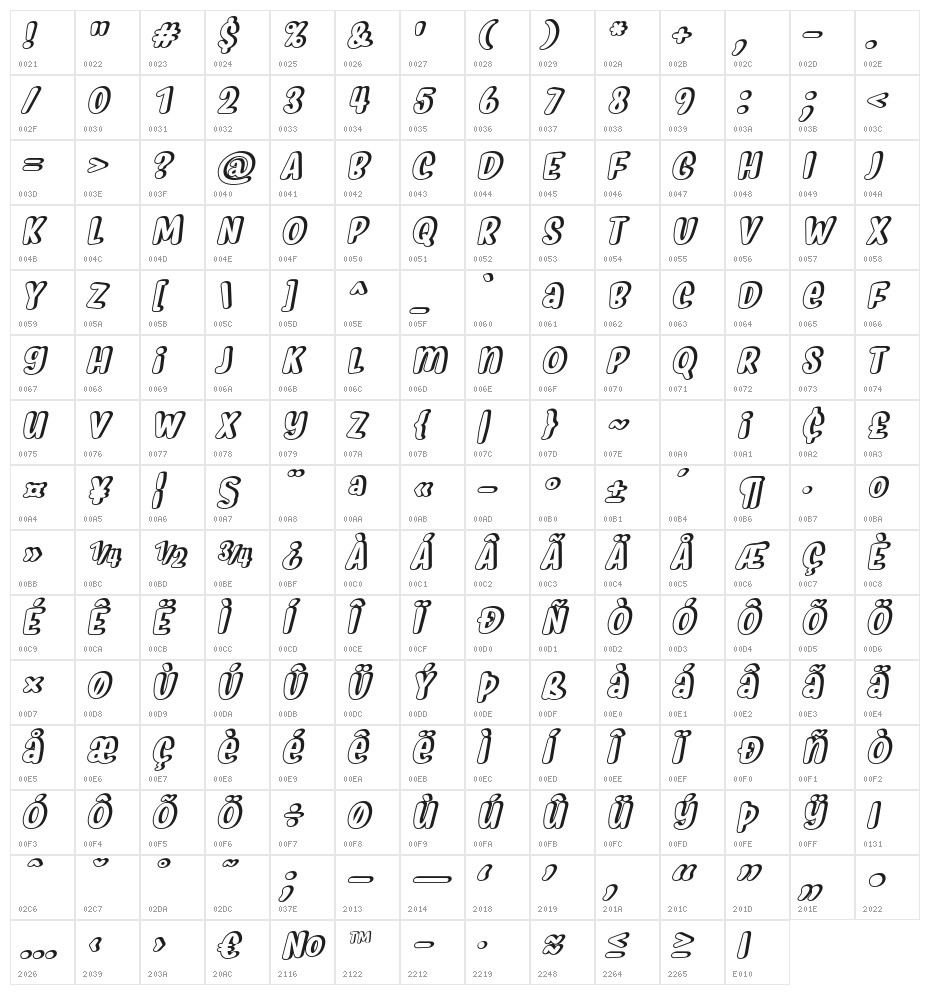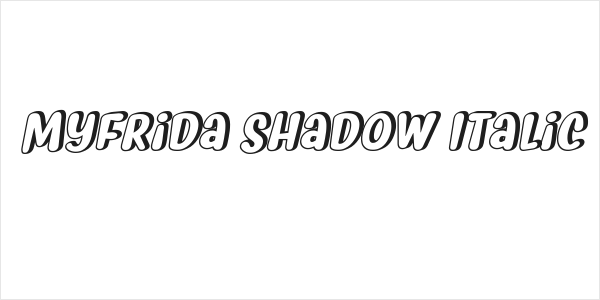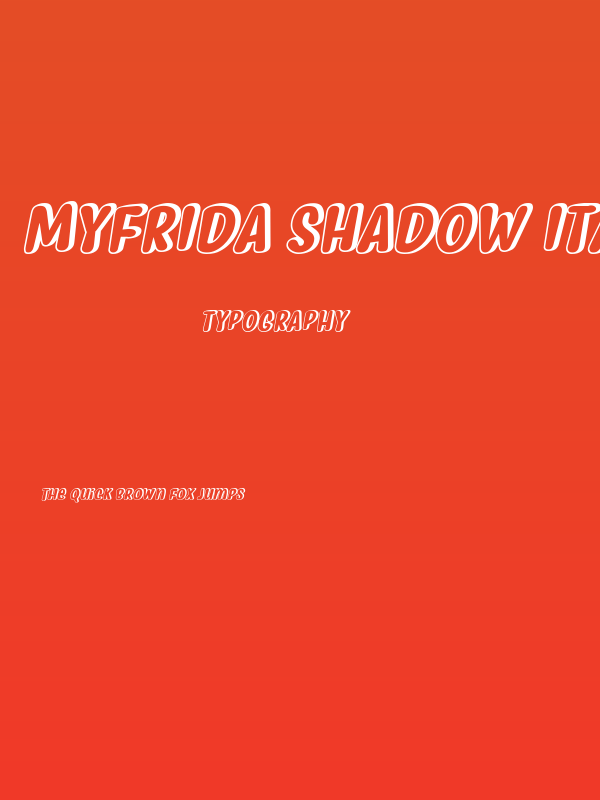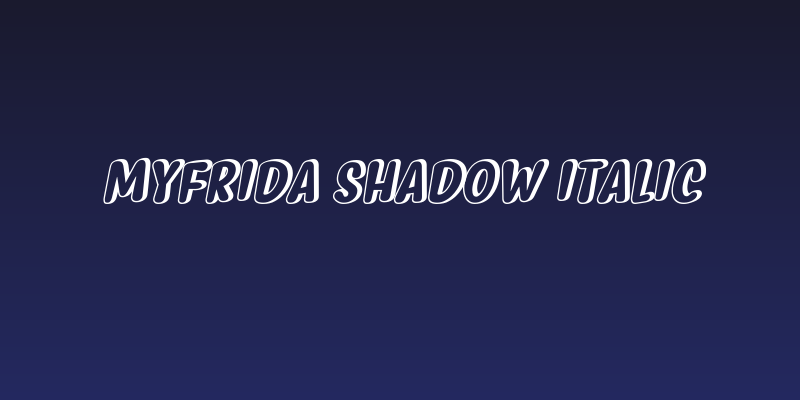
Myfrida Shadow Italic Font
Myfrida Shadow Italic Description
This font features a bold, playful style with a distinct shadow effect that adds depth and dimension to each character. The italic slant gives it a dynamic and energetic feel, making it stand out in any design. The uppercase and lowercase letters are well-proportioned, maintaining a consistent flow throughout. Numbers and special characters are designed with the same attention to detail, ensuring versatility across various uses. The overall appearance is modern and eye-catching, suitable for projects that require a touch of creativity and flair.
Proposed ProjectsIdeal for posters, headlines, logos, and any creative project that benefits from a bold and playful aesthetic.